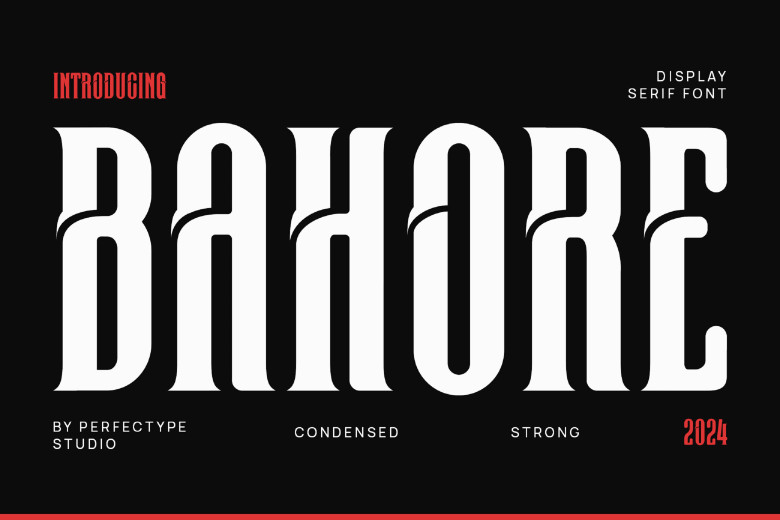
Bahore Font
Bahore captures rhythm as smooth and balanced through its blend of influences, with precise manipulation of proportions using subtle contours and contrasts for added dynamism. Each font glyph’s minimalist aesthetic and appealing form make this font perfect for projects like brochures, videos, advertisements, branding, logos, magazines, layouts, posters, templates, post, games, templates as well as many others.
Bahore Display Font